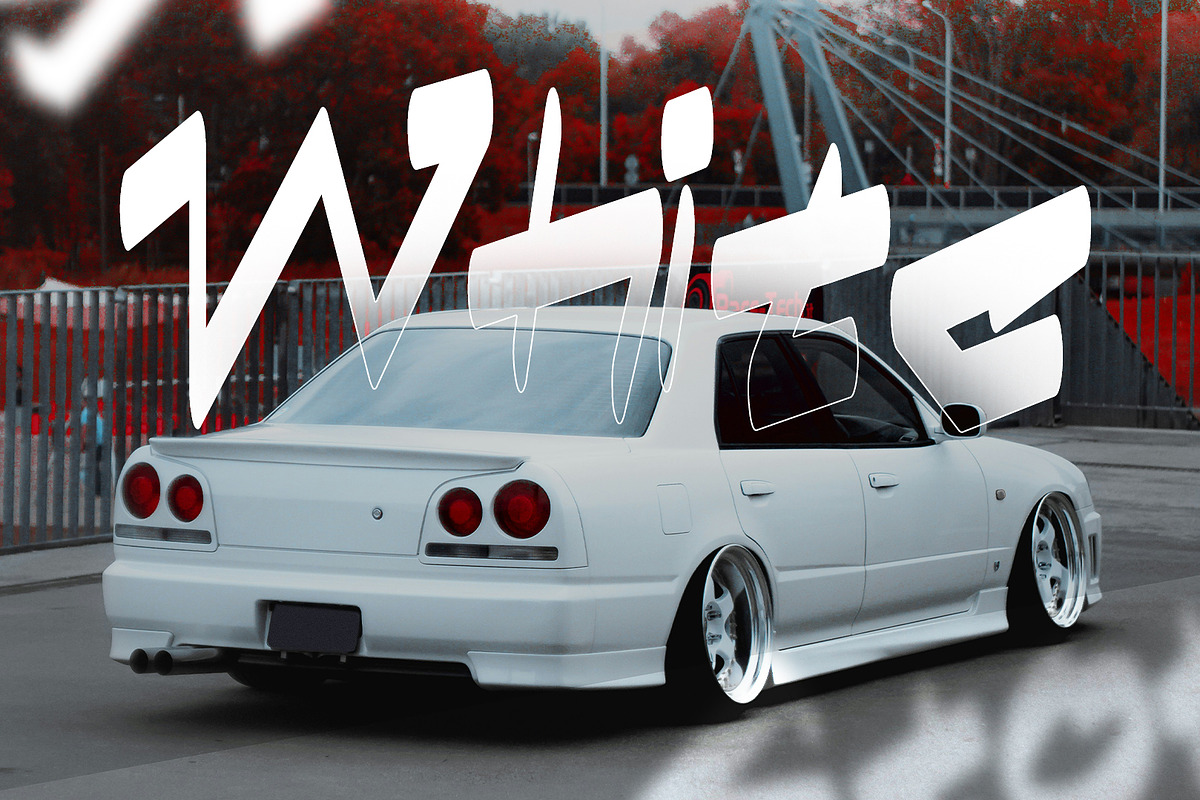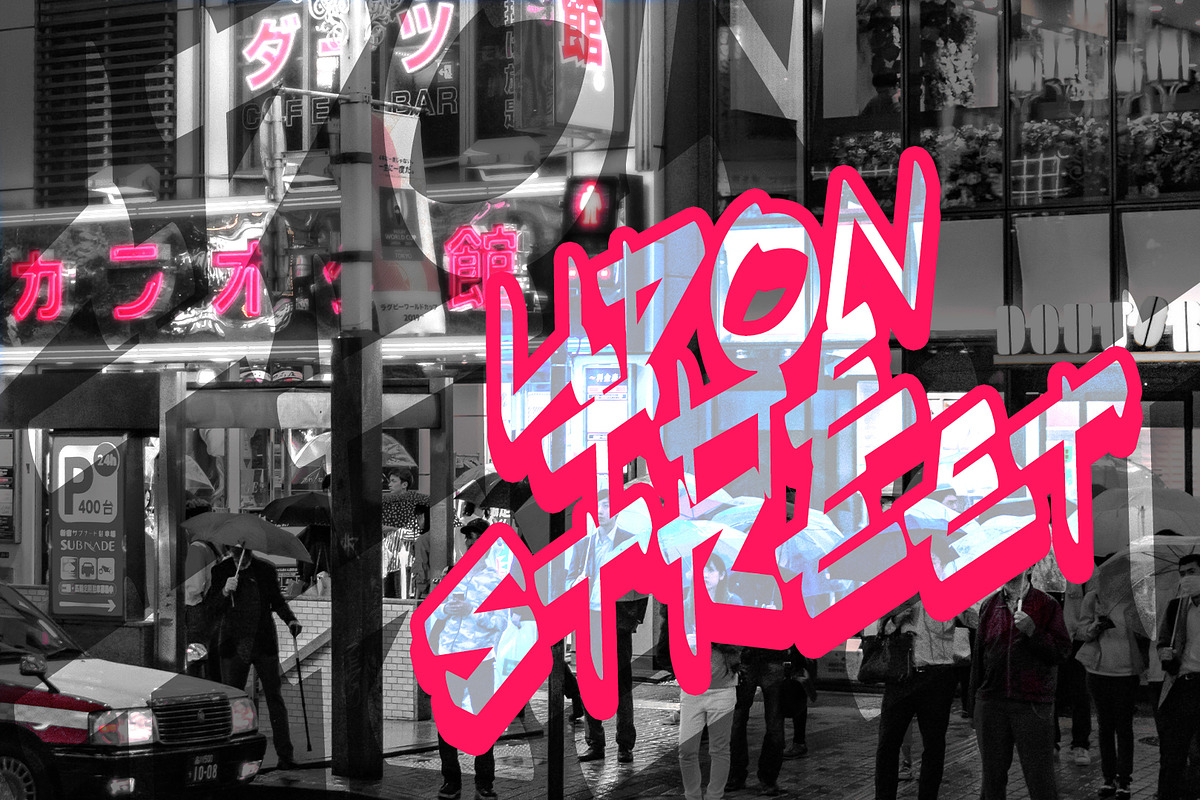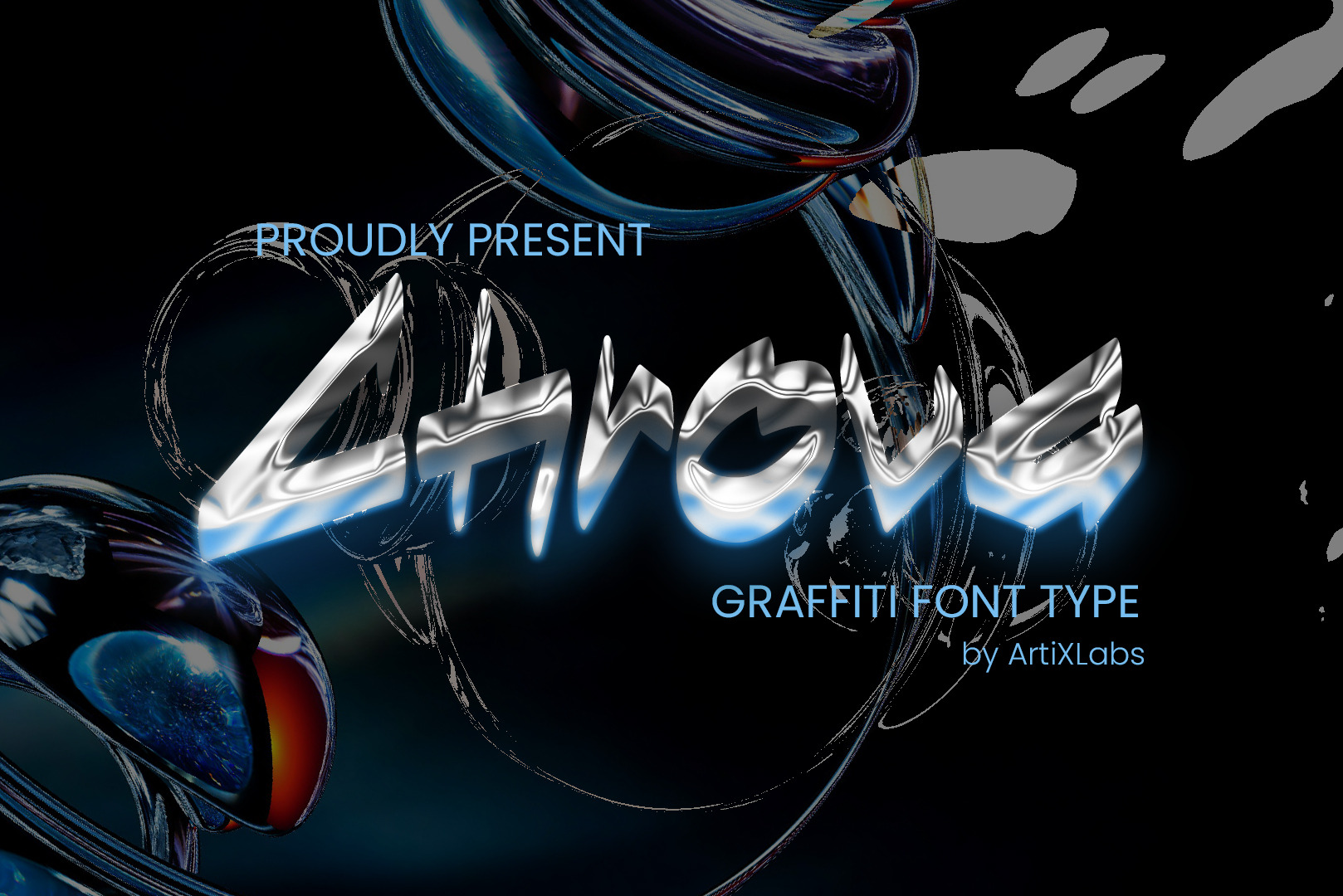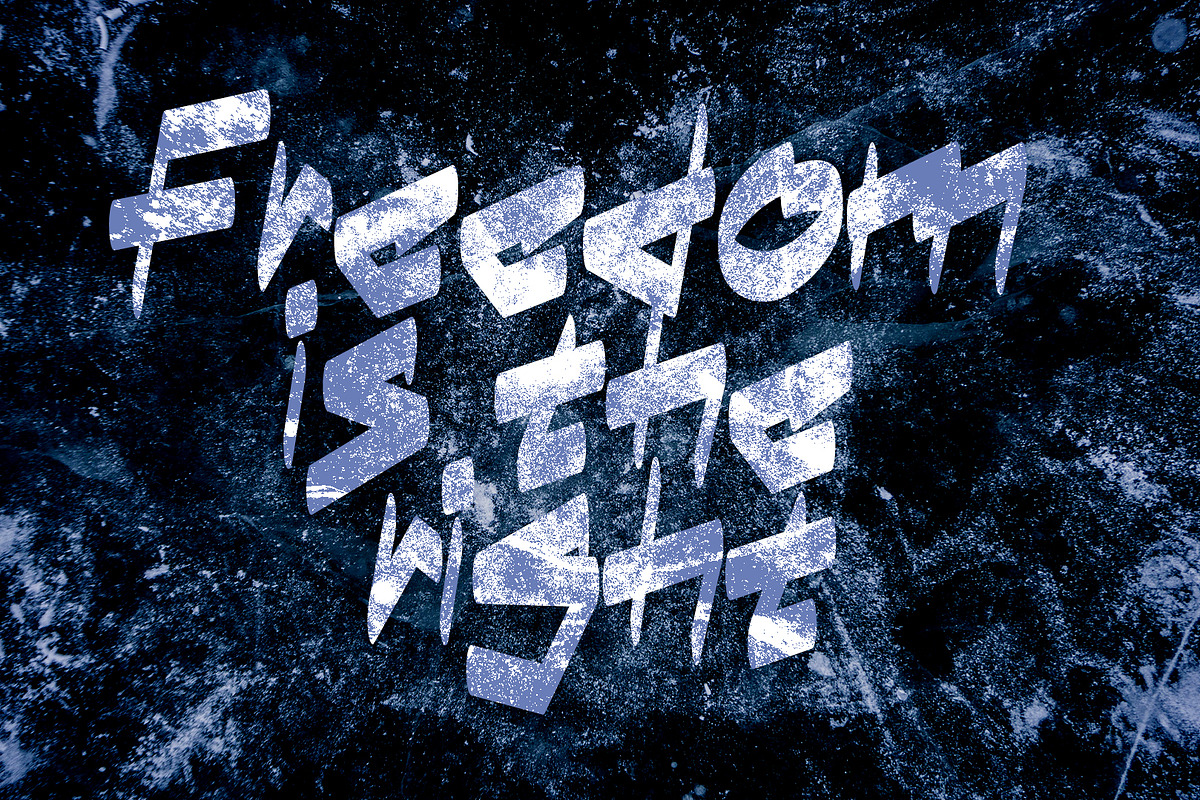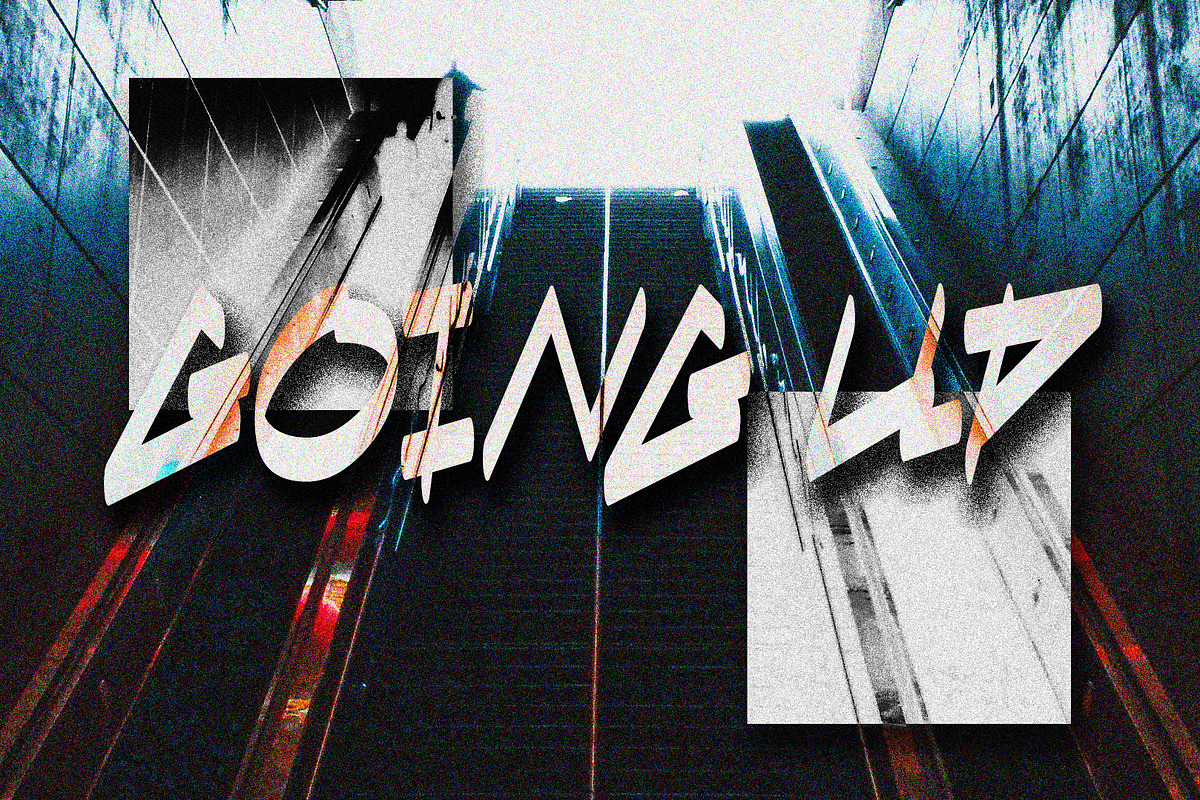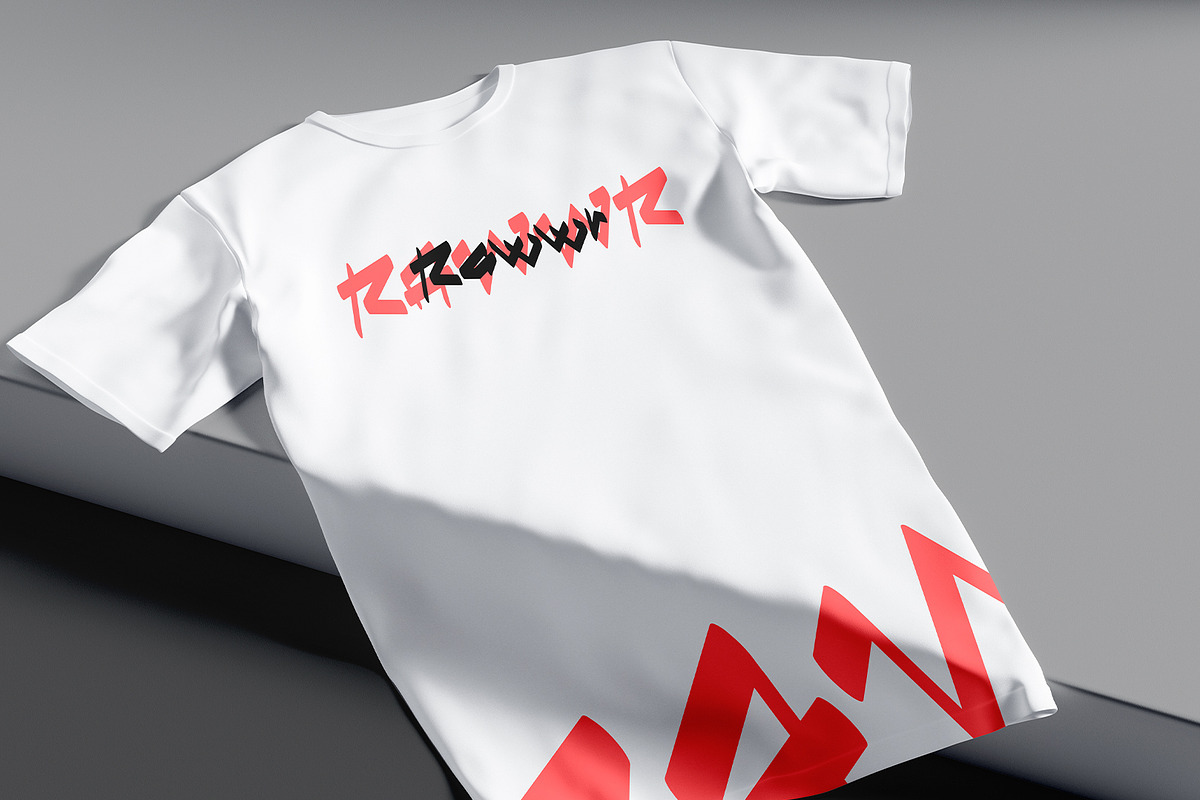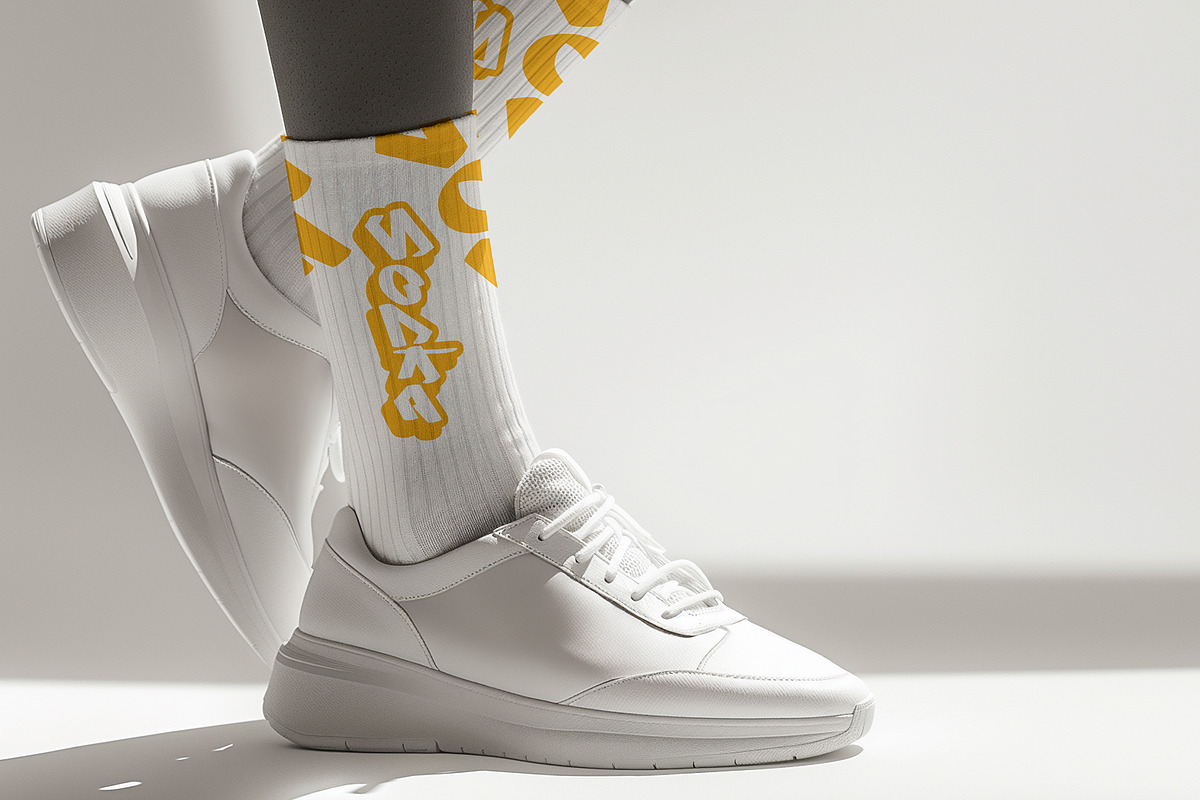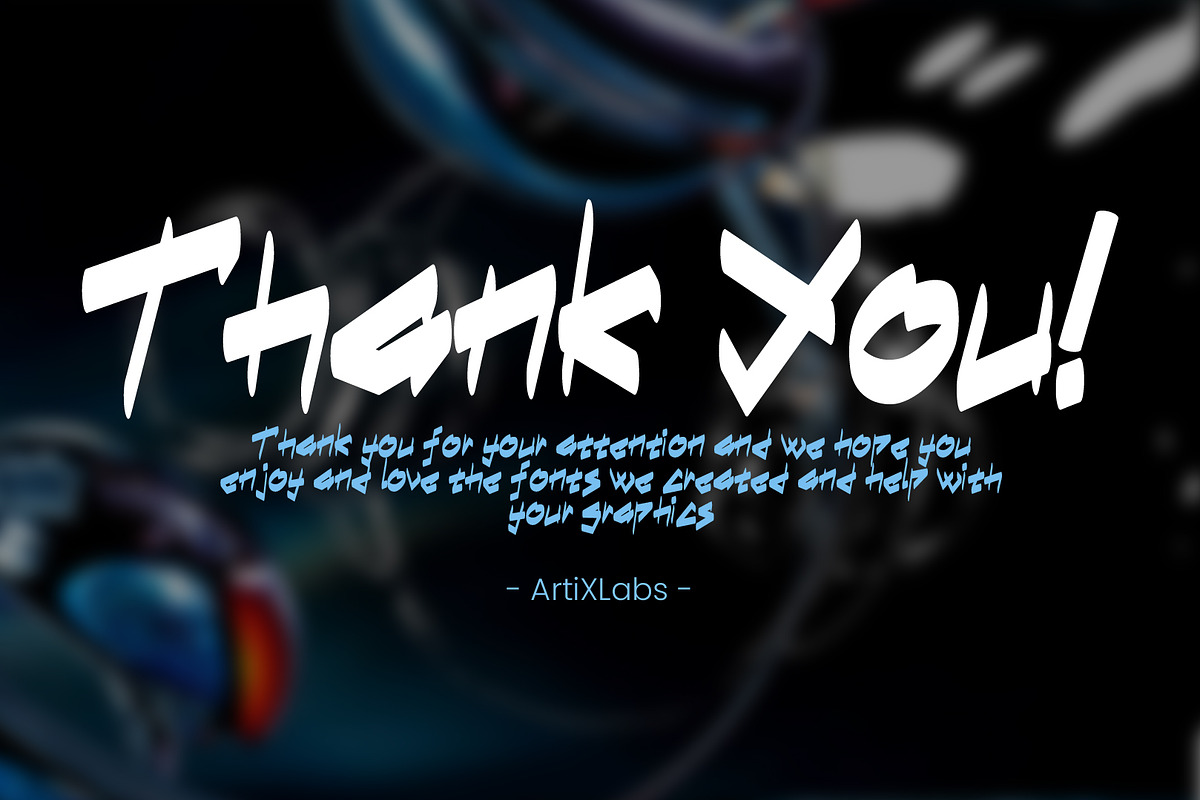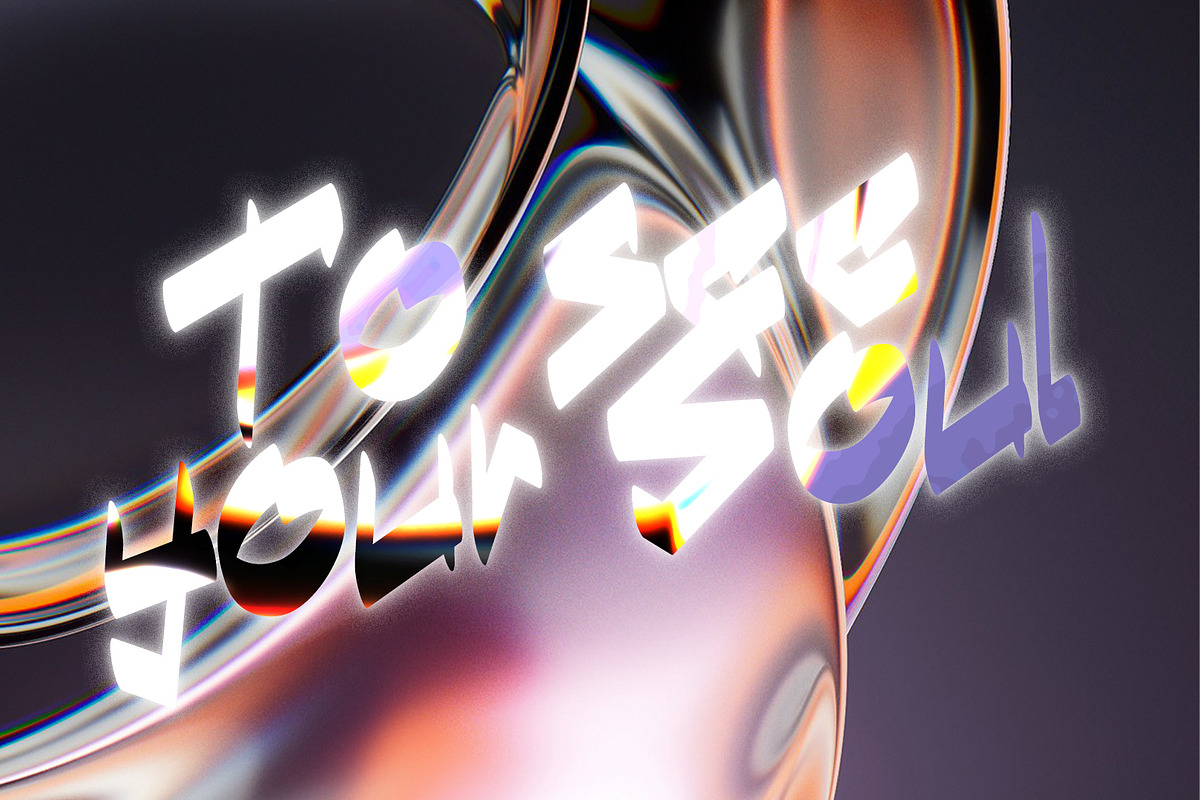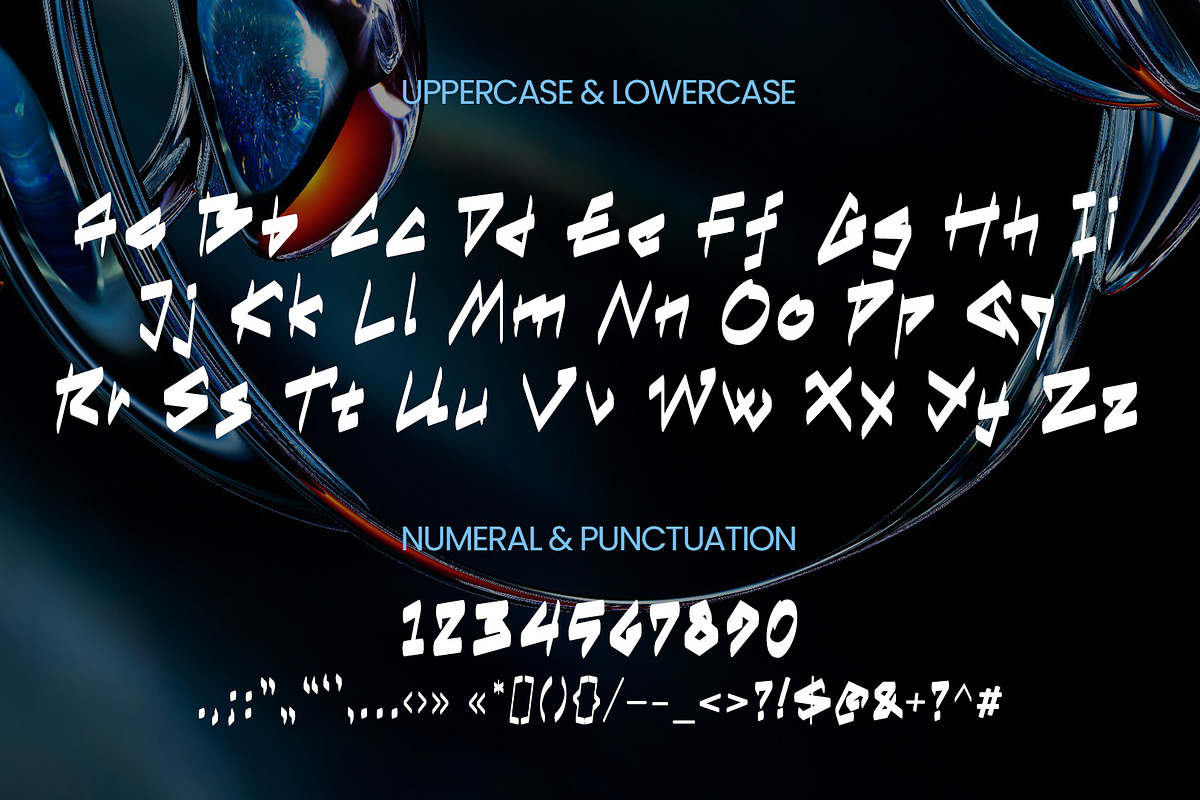
Chrova Futuristic Urban Display Font
Chrova – Cyber Street Style Display Font
Chrova is a bold cyber tech graffiti display font with futuristic chrome aesthetics and sharp urban strokes. Designed with a metallic, sci-fi feel, Chrova delivers a strong visual impact perfect for posters, branding, streetwear, music covers, esports, and digital creative projects.
Its dynamic shapes and aggressive flow make it ideal for headlines and logo designs that demand attention.
-High-impact display style
Chrova is a premium font crafted for modern urban and futuristic design concepts.